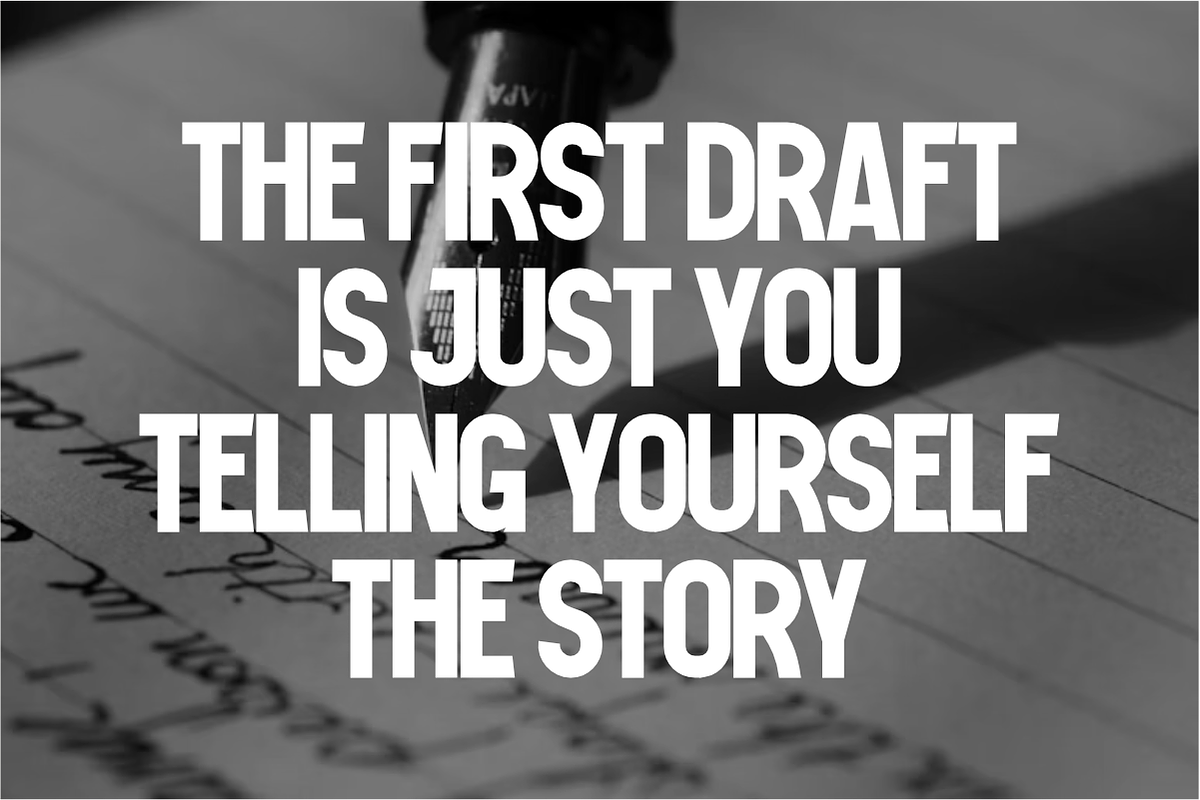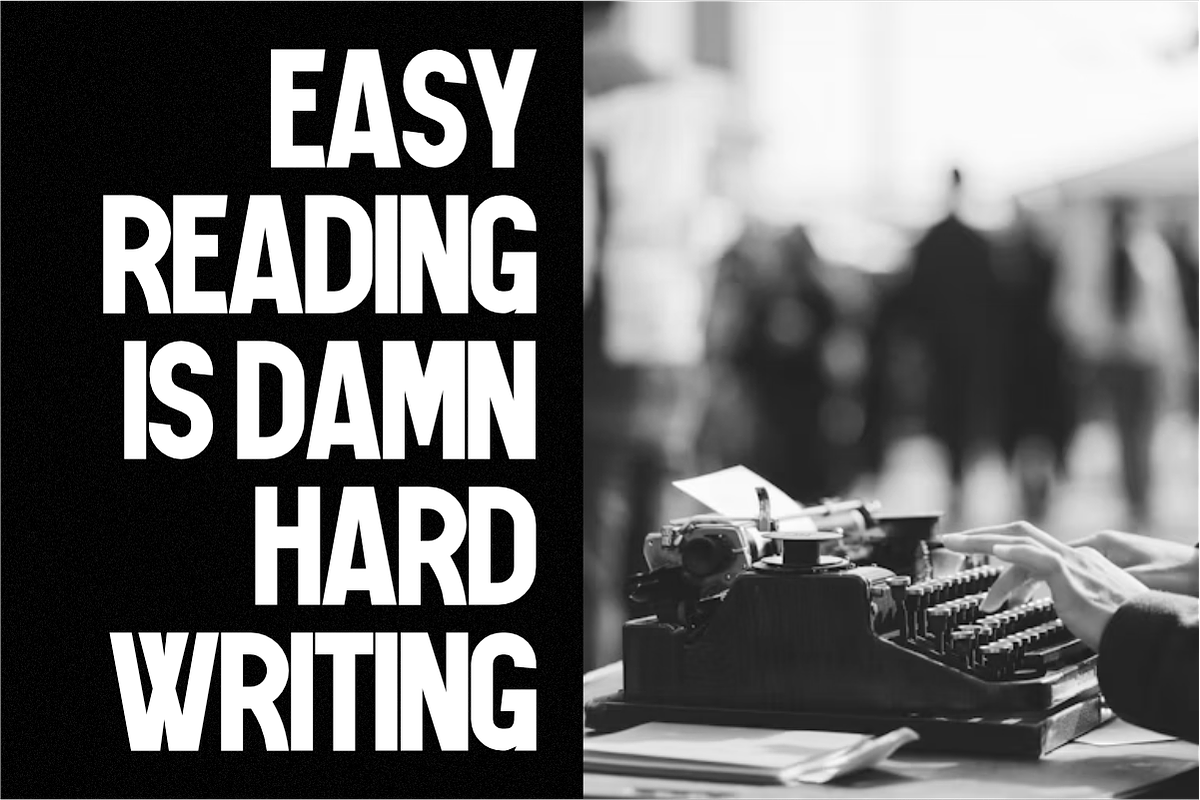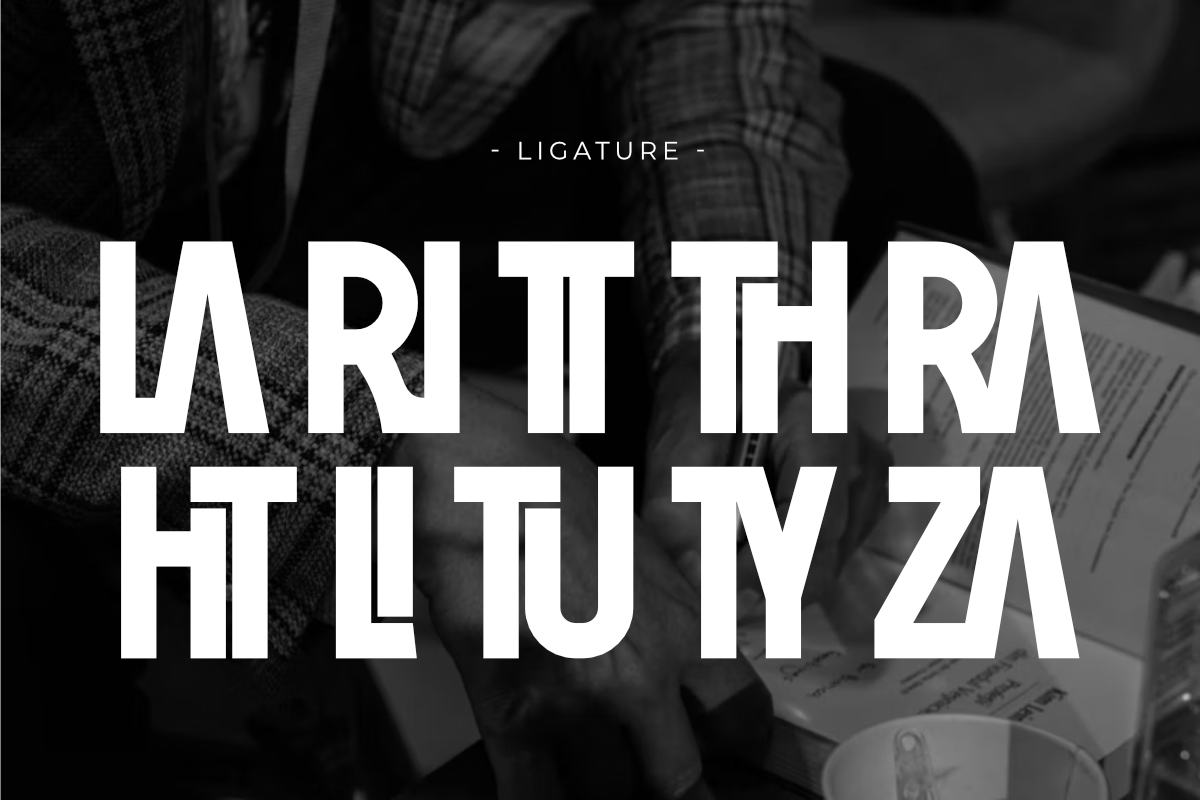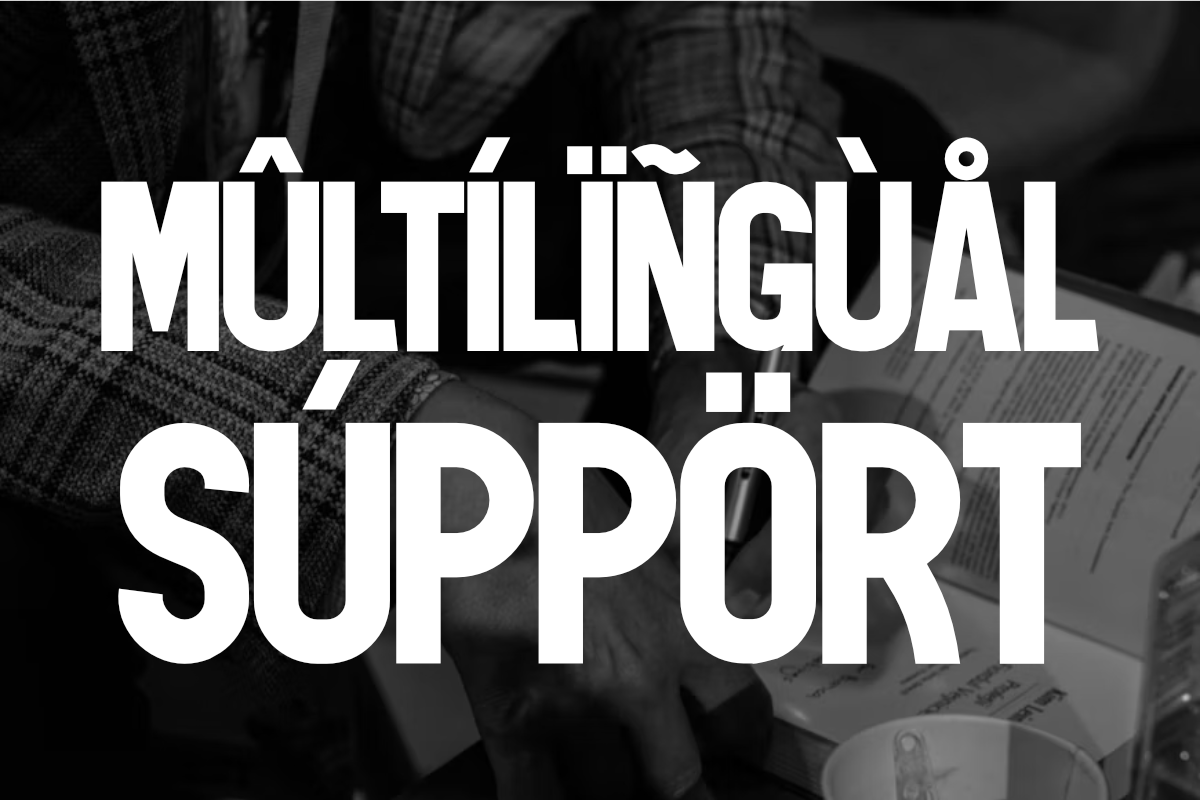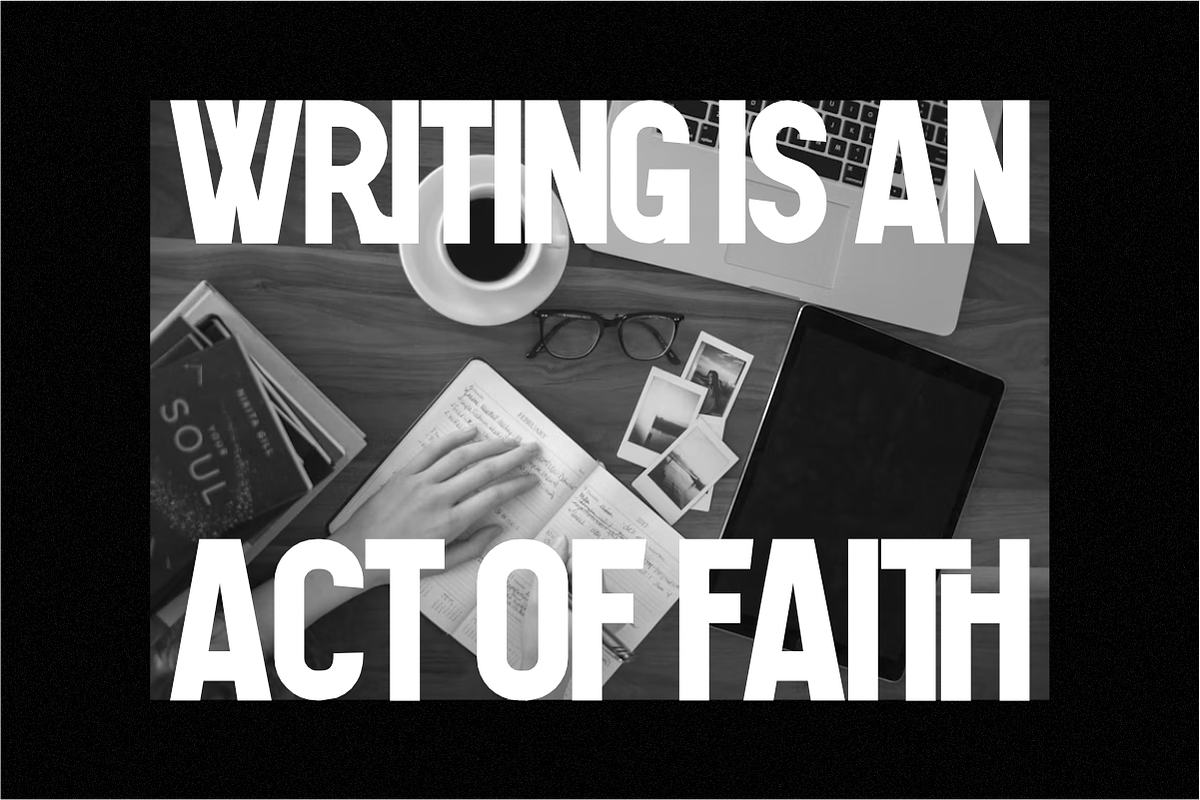
Black Writing - Condensed Sans Serif
Black Writing is a striking, condensed sans serif font that combines a clean, minimalist aesthetic with a powerful visual presence. Its sleek, bold letterforms and efficient spacing make it perfect for creating strong, attention-grabbing headlines, logos, and branding. The font's highly legible and versatile nature also makes it ideal for posters, magazine layouts, and website design, where a modern and professional feel is key.